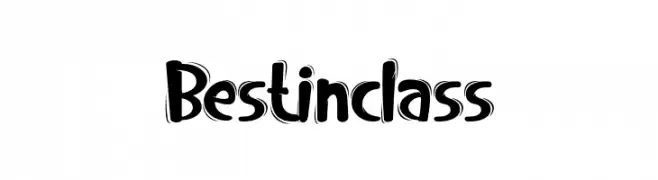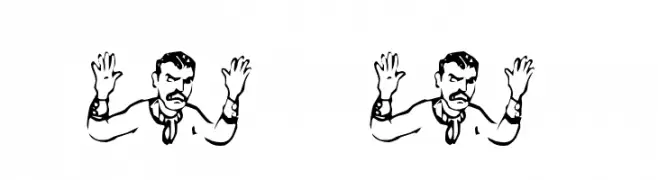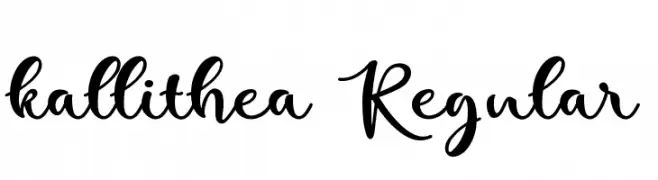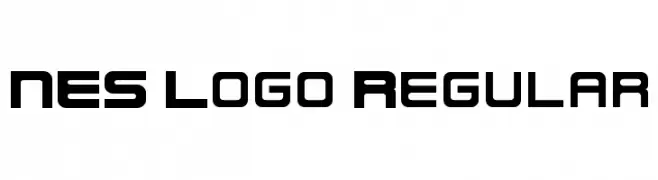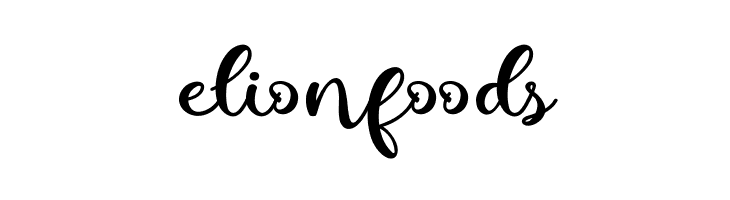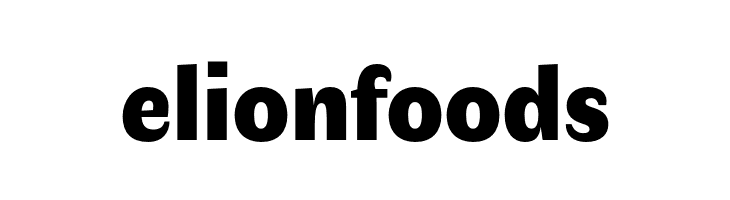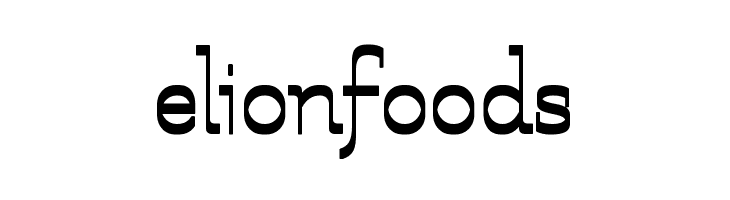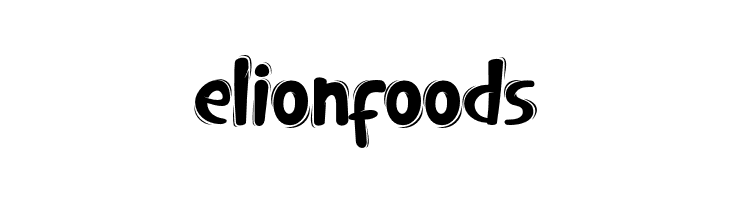
A bold, geometric font with a modern, retro gaming aesthetic.
A collection of cowboy-themed clip art illustrations, not a traditional font.
A bold, modern typeface with strong, uniform letterforms.
A bold, italicized font with a flowing, cursive-like style.
A clean and modern sans-serif font with consistent stroke width and excellent readability.
An elegant italic font with flowing, sophisticated strokes.
A sleek, thin-stroked font with a modern and minimalistic design.
A bold, playful font with a hand-drawn, three-dimensional look.